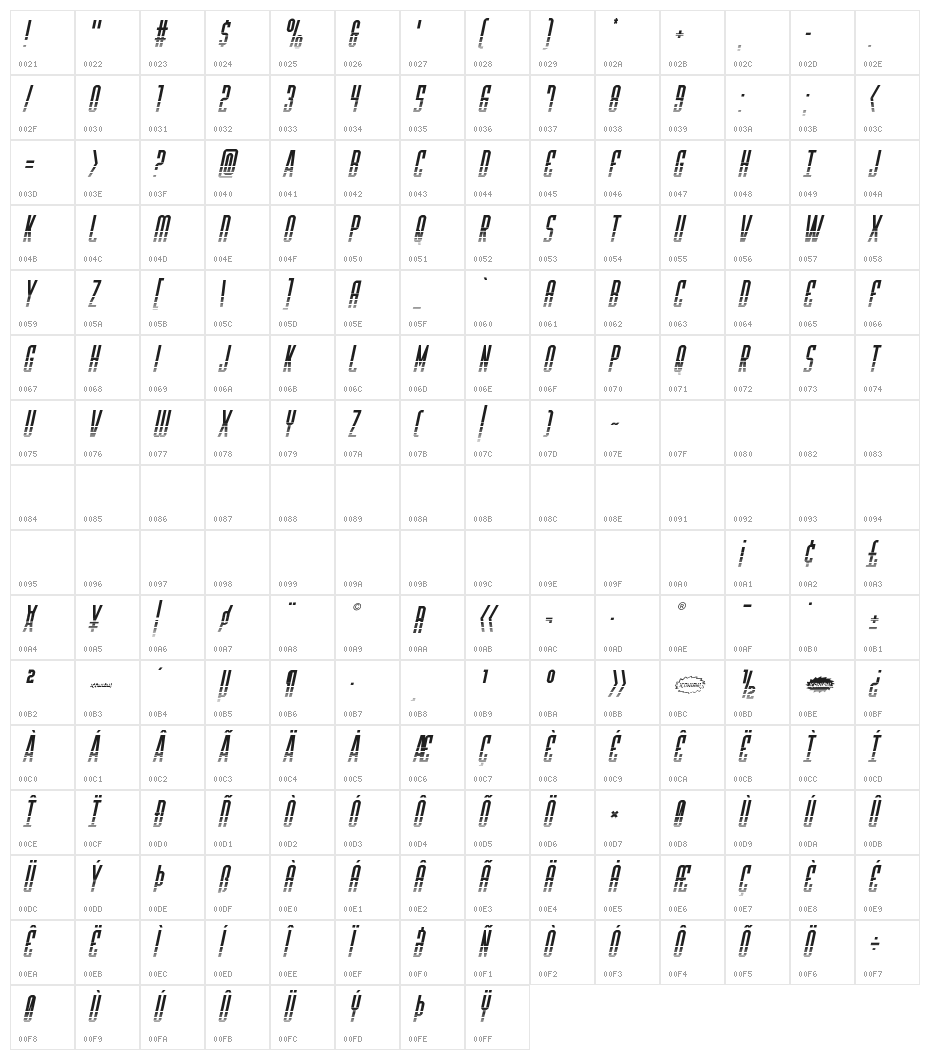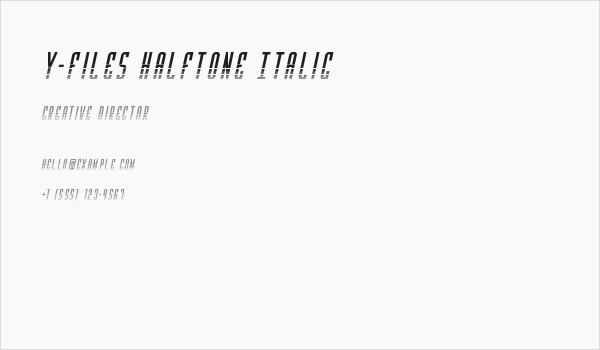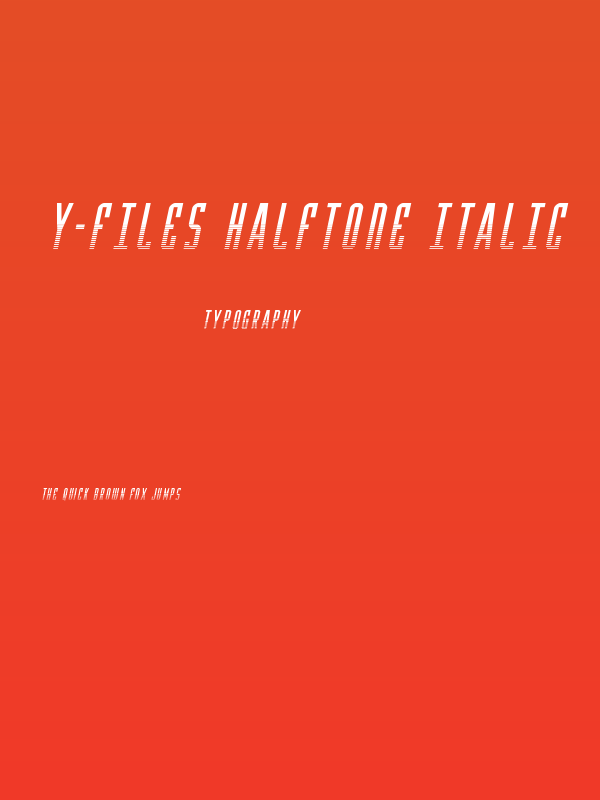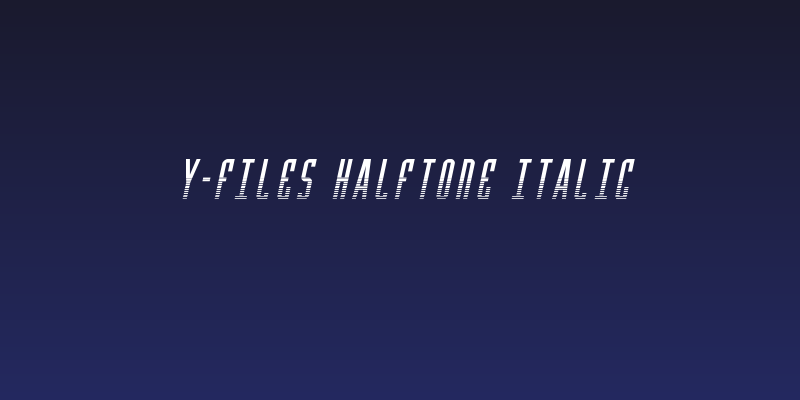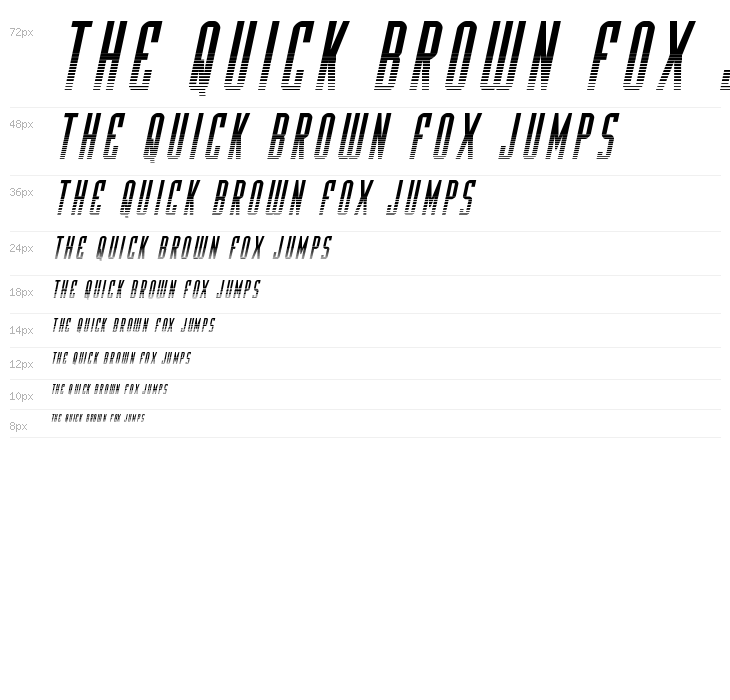
Y-Files Halftone Italic Font
Y-Files Halftone Italic Description
This font features a dynamic and modern design with a halftone effect that creates a sense of movement and energy. The characters are italicized, adding a sleek and forward-leaning appearance. The uppercase and lowercase letters are consistent in style, with a distinctive striped pattern that gives a unique texture. The numbers and special characters maintain this design, ensuring uniformity across all glyphs. This font is ideal for projects that require a bold and eye-catching look, such as posters, advertisements, and branding materials. Its distinctive style makes it stand out, while the italic slant adds a touch of sophistication.
Proposed ProjectsIdeal for posters, advertisements, branding, and any project needing a bold, modern look.